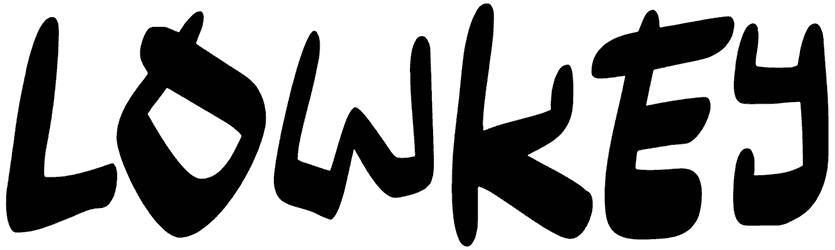
Lowkey Font
Selecting a magical all-caps cartoon font the same as the Lowkey would be a glorious decision and cement your credentials as a professional and talented artist. This masterpiece really deserves to be on your radar in the realm of designing book covers, stickers, graffiti, product packaging, and branding projects.
Needless to say that this glorious artwork carries a sense of jauntiness, modernity, grunge, and smudginess. Ignoring a glorious font the same as this one would never be a good idea.